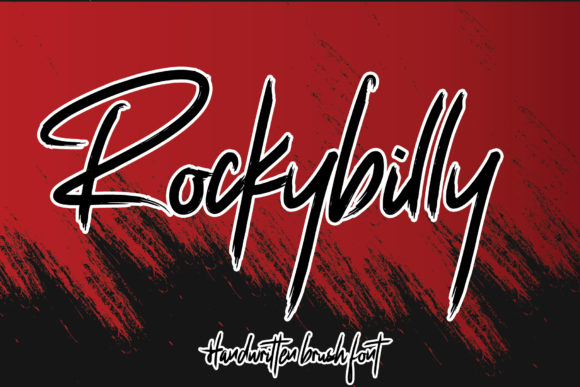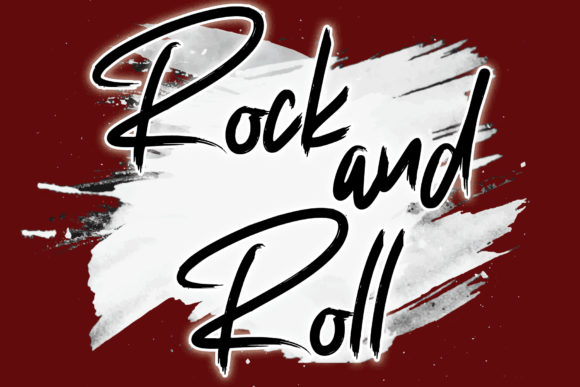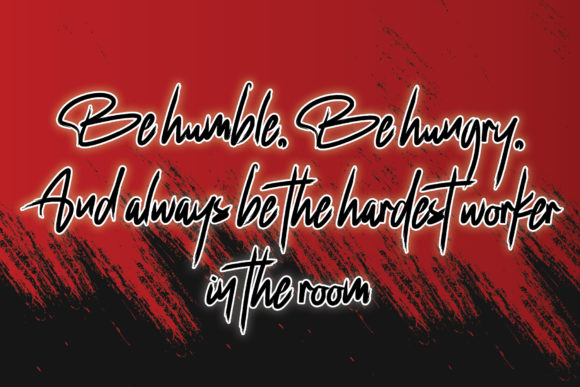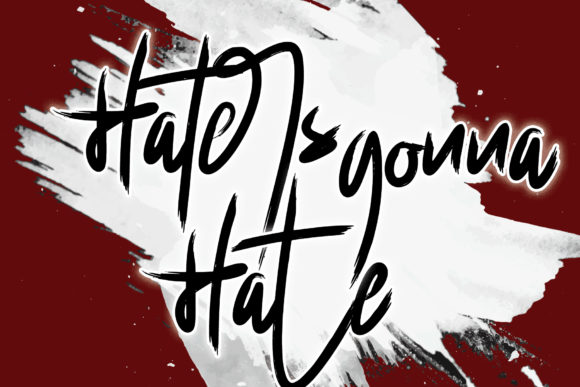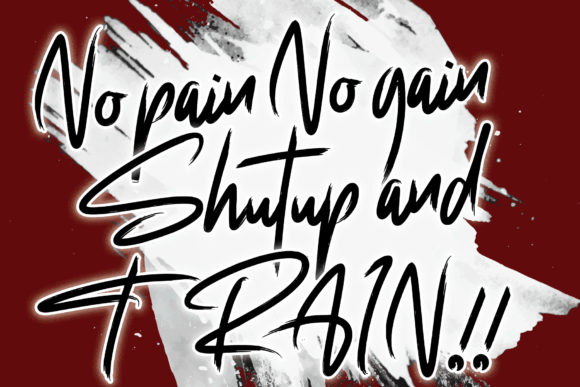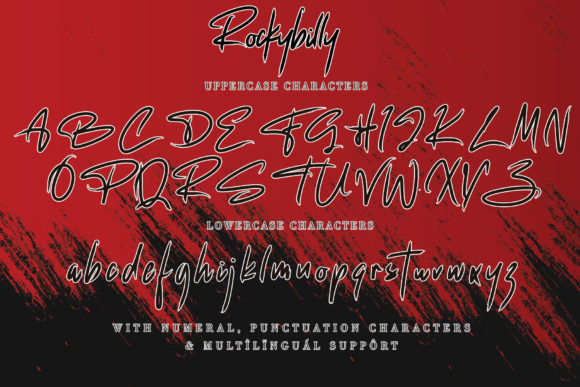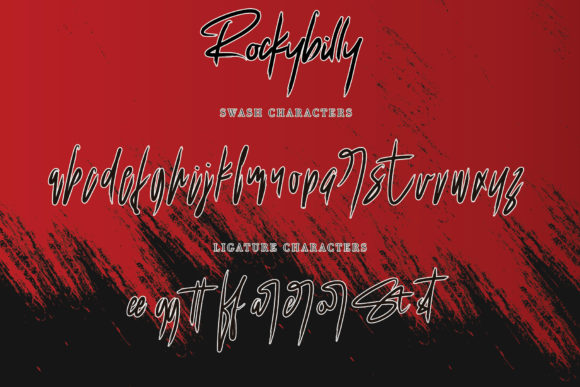
HomeScript FontsRockybily Font Script Fonts Rockybily Font FacebookXPinterestWhatsApp Rockybily Font Poster 2 Rockybily Font Poster 3 Rockybily Font Poster 4 Rockybily Font Poster 5 Rockybily Font Poster 6 Rockybily Font Poster 7 About Rockybily Font Rockybilly is a super handwritten brush font bursting with energy. Get inspired by its modern charm! DOWNLOAD NOW People also explored Leisoll Reef Font Valkrie Font Hello Swift Font Magnolin Font Vinegar N Salt Font Delight Font Hardacre Sanderson Font Delima Ornament Font Nicholas Font 267 0 TagsRockybily Font Previous articleAcilla Tristan FontNext articleSillmy Font LEAVE A REPLY Cancel reply Comment: Please enter your comment! Name:* Please enter your name here Email:* You have entered an incorrect email address! Please enter your email address here Website: Save my name, email, and website in this browser for the next time I comment. Personal Use Free BD Lofi Personal Use Free Read more about this font Alinda Personal Use Free Read more about this font Street Cred Personal Use Free Read more about this font Underwood Champion Personal Use Free Read more about this font BLOG Best Fonts for T-Shirt Design – Top 2025 Picks In 2025, t-shirt design has become more than just fashion—it's a form of self-expression. Whether you're... How to Cut Any Font on Cricut: Convert a Font to SVG (Free) How to Install and Use Fonts on Windows, macOS, and Web Projects To increase your work productivity, choose the most readable fonts.